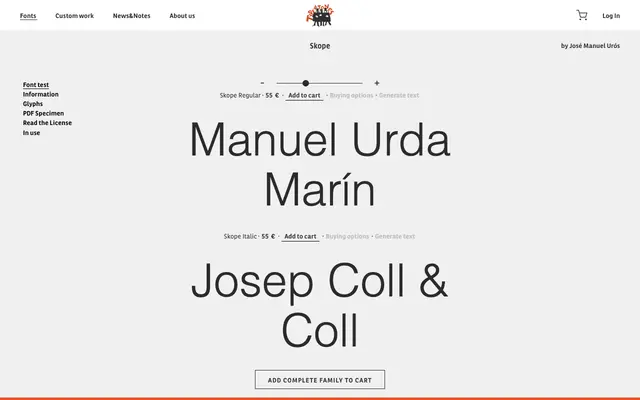
Skope
A two-style type family from Type-ø-tones, designed by José Manuel Urós with a regular and italic cut.
Skope is a modest family consisting of a Regular and Italic, both priced at 55 units, released by the Barcelona foundry Type-ø-tones. Designed by José Manuel Urós, the family offers a restrained option suited to text work. The page provides limited detail on its intended application or historical context.
The sparse page content does not specify a detailed classification, but the name and single-weight offering suggest a functional grotesque or geometric sans-serif design from a Spanish foundry known for experimental Latin type.